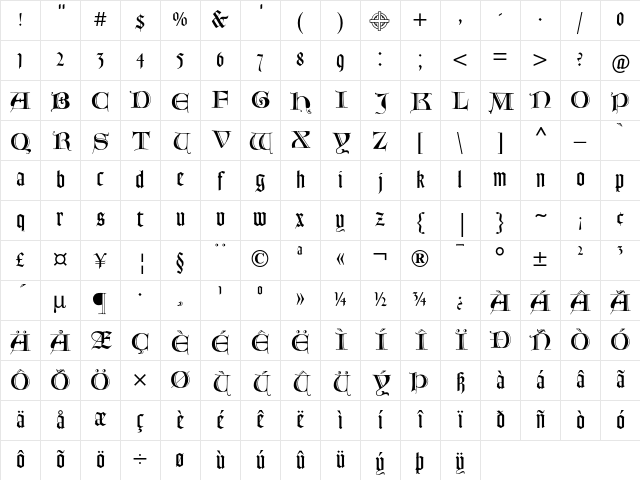
Goudy Text MT Lombardic Capitals
Style: Lombardic Capitals
Complete Goudy Text MT Lombardic Capitals glyph index. Displaying only characters natively supported by Goudy Text MT Lombardic Capitals font.
Design Context for Goudy Text MT
Goudy Text MT is a composed and adaptable typeface that performs quietly and consistently across a wide range of design contexts.